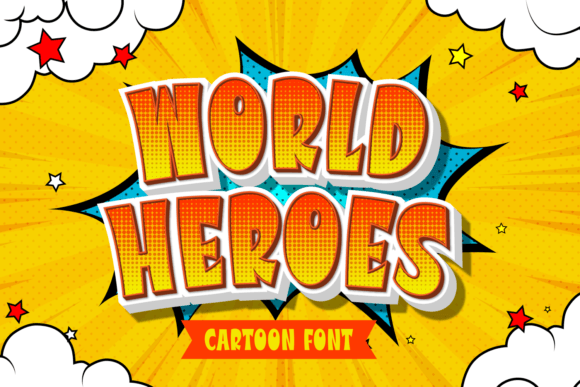
Introducing World Heroes Font, a display font that brims with playful charm and boundless creativity!
Immerse yourself in a world of whimsical wonders, where every letter dances with joy and individuality. World Heroes Font is not merely a typeface; it's an invitation to unleash your imagination and transform ordinary designs into extraordinary masterpieces.
Picture this: a vibrant poster that bursts with color and wit, adorned with the quirky characters of World Heroes Font. Or, envision a playful t-shirt that captures the carefree spirit of childhood, its message emblazoned in this delightful font.
World Heroes Font is the perfect font for those who seek to add a touch of whimsy and personality to their designs. It's a font that embodies the essence of joy and playfulness, perfect for projects that aim to evoke a sense of wonder and delight.